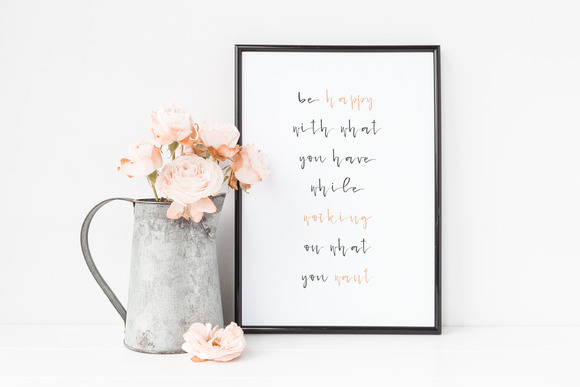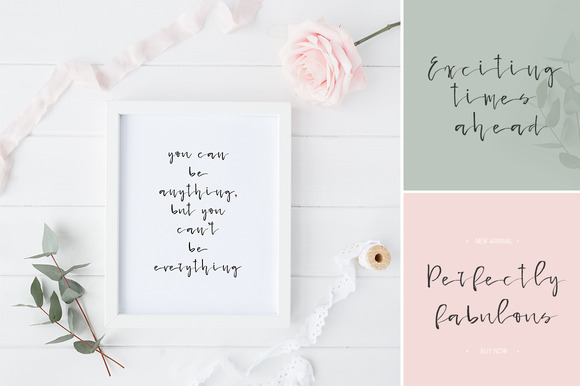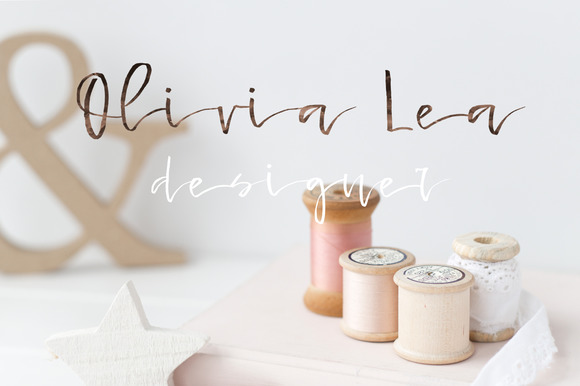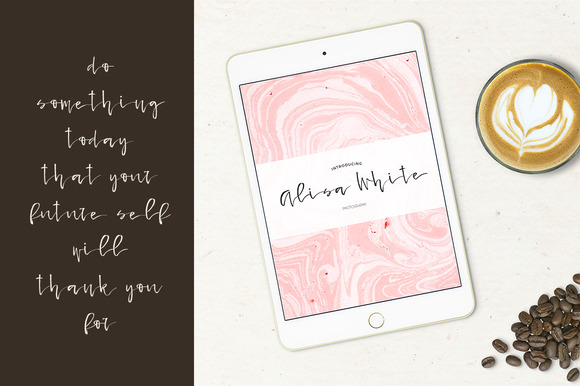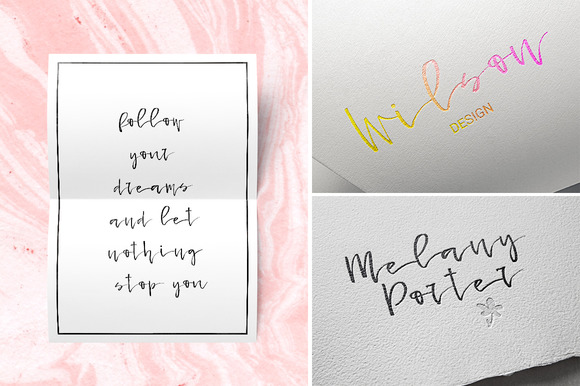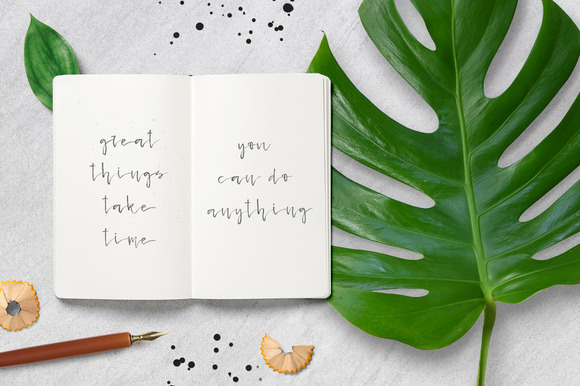
Introduction to Penelopa Font
Have you ever stared at a blank page, feeling stuck and unsure of where to begin a creative project? For designers, this moment is all too familiar. But sometimes, all it takes is the right design resource to spark inspiration and get those creative juices flowing. One such resource that has captured the hearts of many designers is the Penelopa Font, a sweet and elegant calligraphy-style font that’s perfect for adding a touch of sophistication to any project.
With its delicate, handwritten lines, the Penelopa Font is a high-quality design element that can elevate any creative endeavor. Whether you’re working on a personal project or collaborating with a team, this versatile font is sure to impress. And the best part? It’s available for free download, making it an accessible design resource for designers of all levels.
Key Features of Penelopa Font
- High-quality, elegant design perfect for creative projects and design resources.
- Includes a wide range of characters, including Latin and Cyrillic scripts, for comprehensive language support.
- Designed with precision and attention to detail, ensuring a high-resolution display (up to 300 DPI) for crisp, clear text.
- Unique, modern aesthetic makes it an ideal choice for contemporary creative projects and design applications.
Honest Review: Penelopa Font
I recently stumbled upon the Penelopa Font and I’m excited to share my thoughts on this design resource. As a designer, I’m always on the lookout for high-quality fonts that can elevate my creative projects.
The Penelopa Font is a beautiful, elegant script font that works perfectly for a variety of designs, from wedding invitations to branding materials. One of the things I love about this font is its transparent background, making it easy to layer and combine with other design elements.
- ✨ High-quality design: The Penelopa Font is a premium-quality font that looks amazing on both digital and print materials.
- ✨ Versatile: This font is perfect for a wide range of creative projects, from logos to posters and more.
However, I do have a few minor complaints: the font is only available in a few file formats, which can be a limitation for some designers. Additionally, the font may not be as versatile for designs that require a more bold or playful style.
Overall, I’m impressed with the Penelopa Font and would highly recommend it to designers looking for a high-quality, elegant script font for their creative projects.
Penelopa Font is ideal for use in creative projects, such as logos, posters, and social media graphics. It’s also great for use in presentations, reports, and documents where a high-quality font is necessary. With its transparent background feature, you can use it in a variety of design contexts, including web design and digital art.